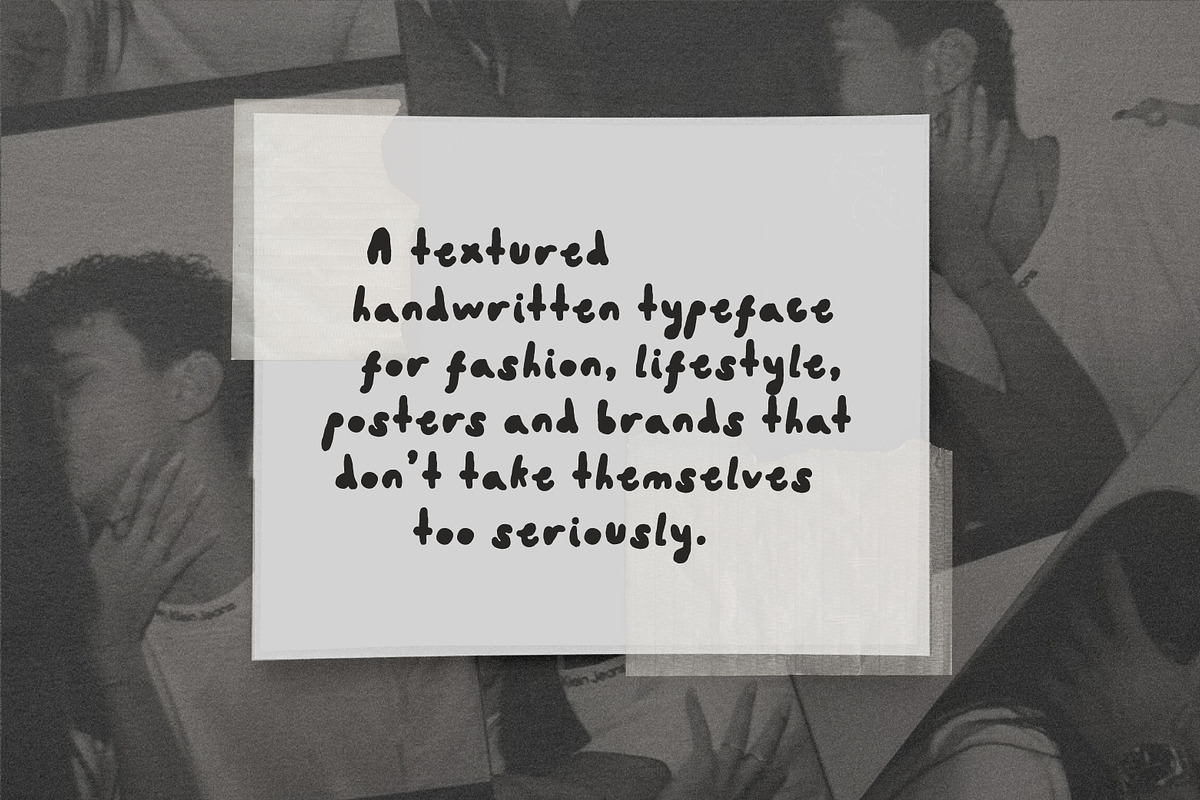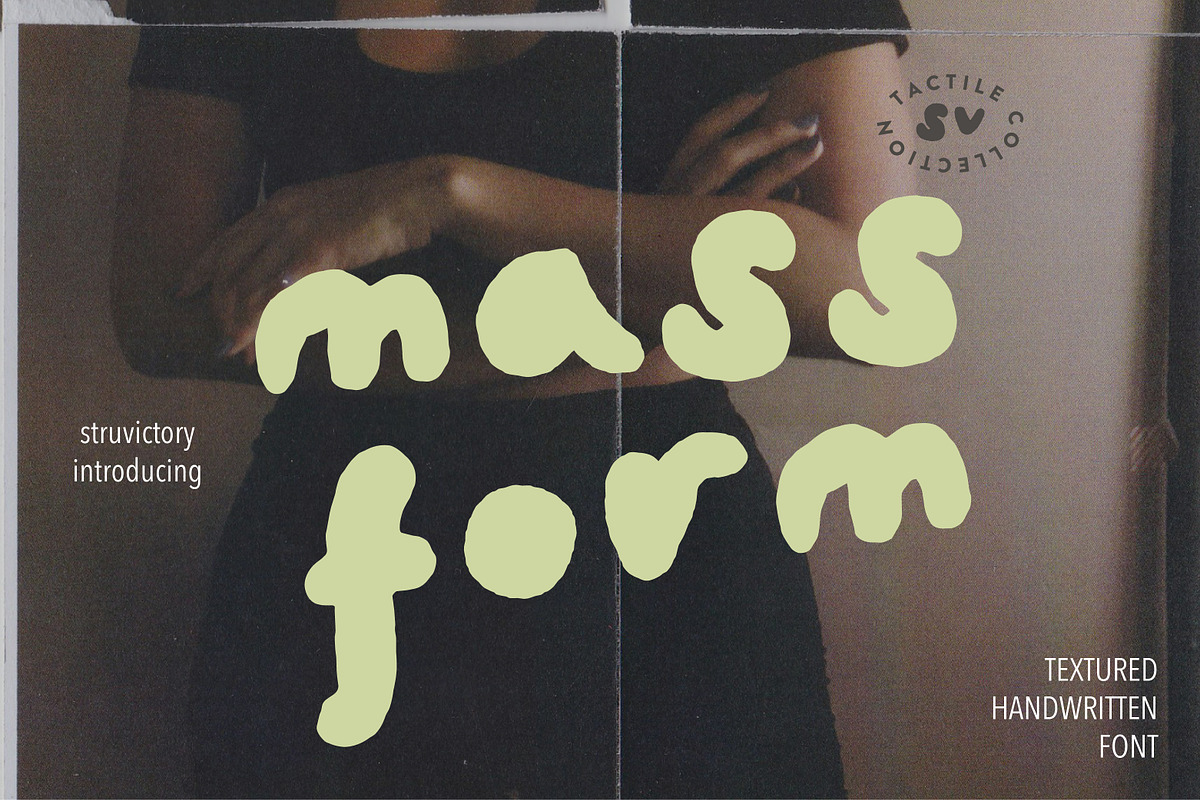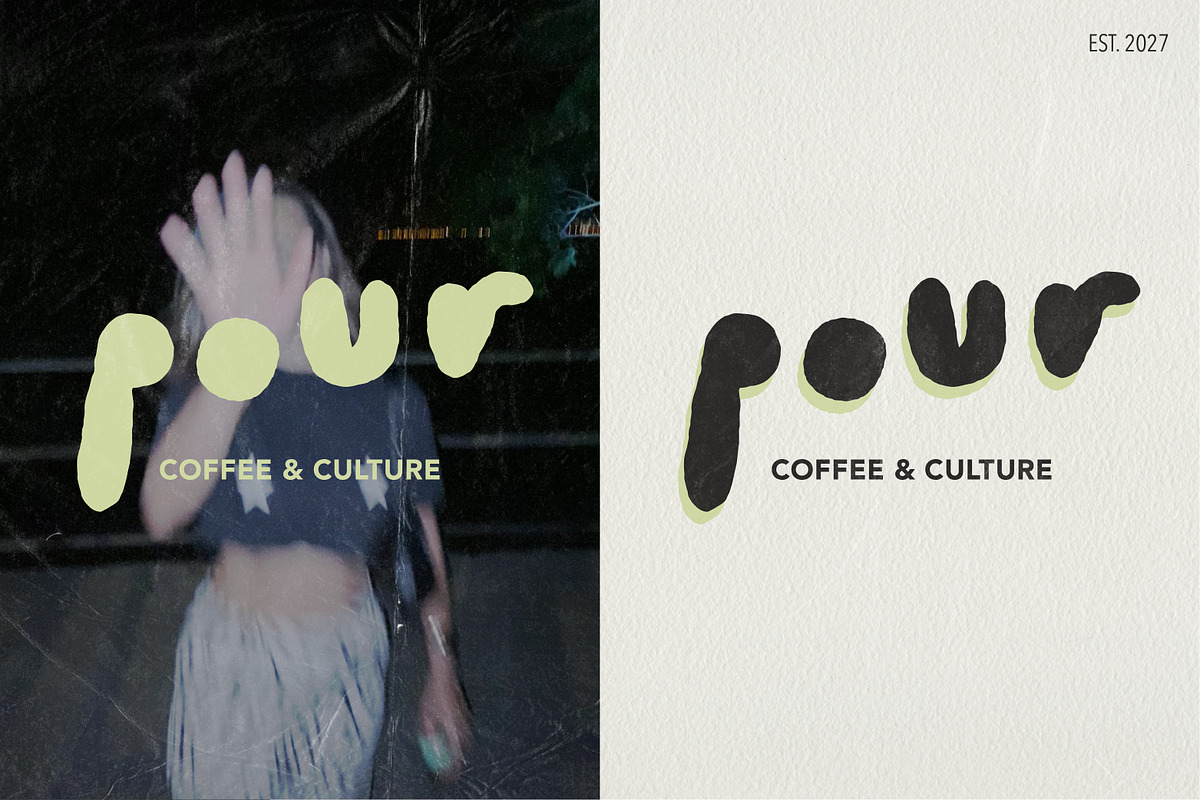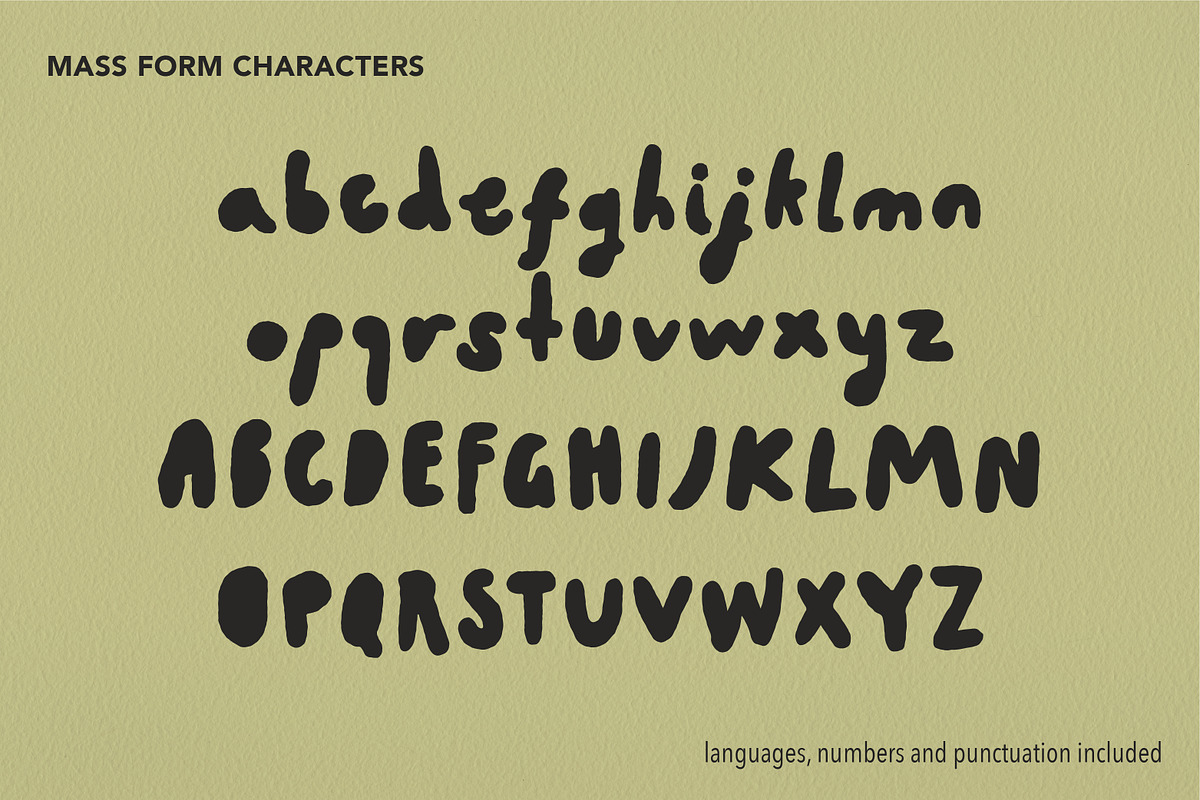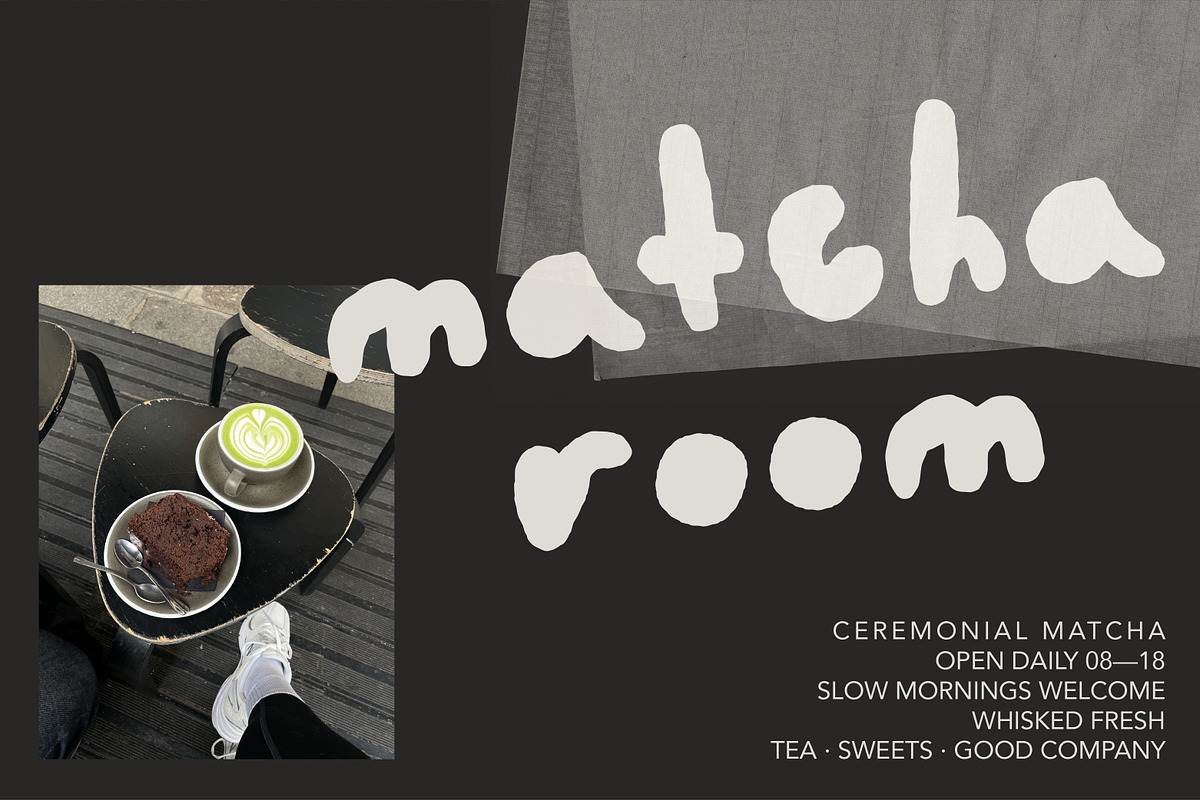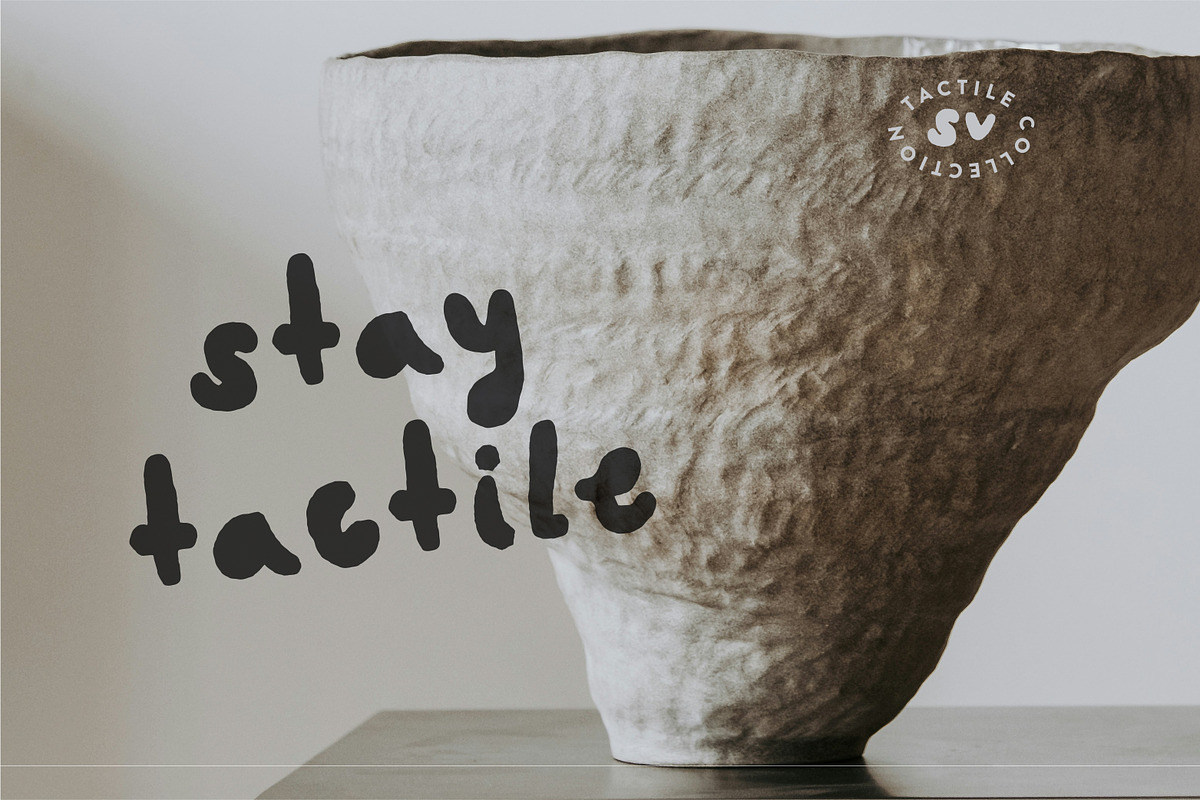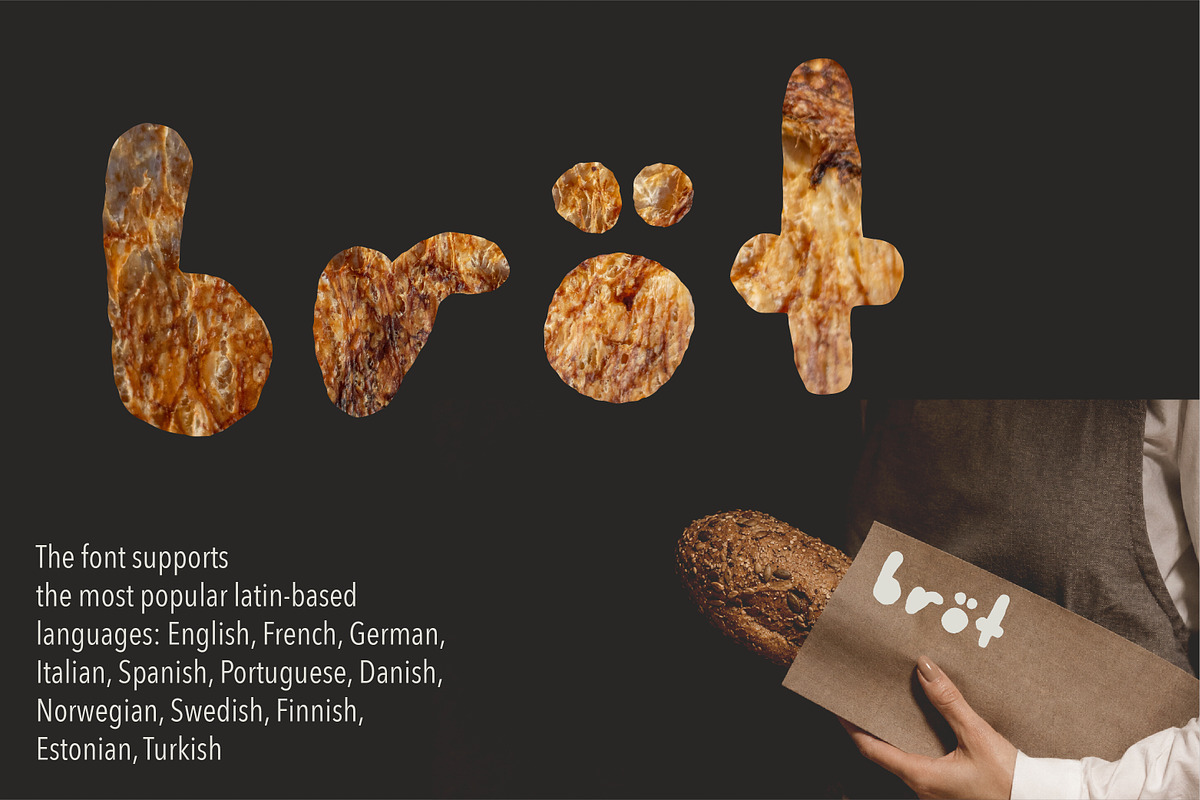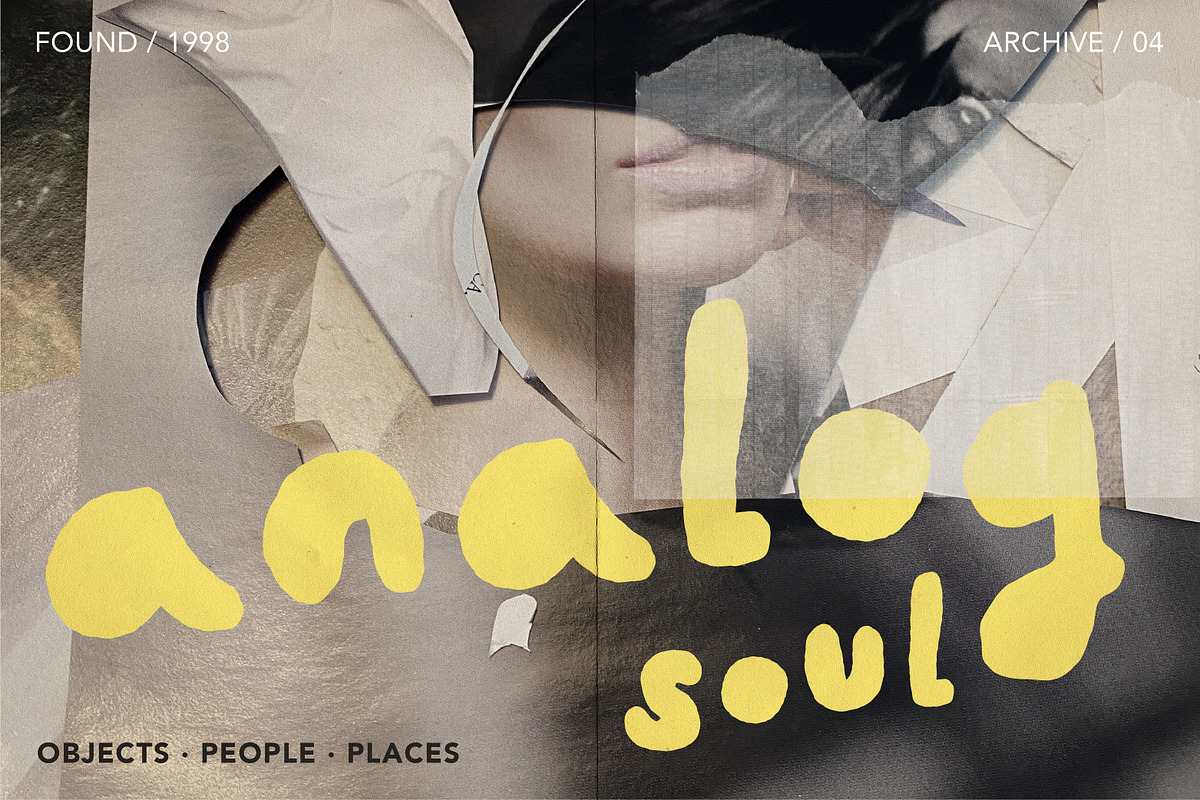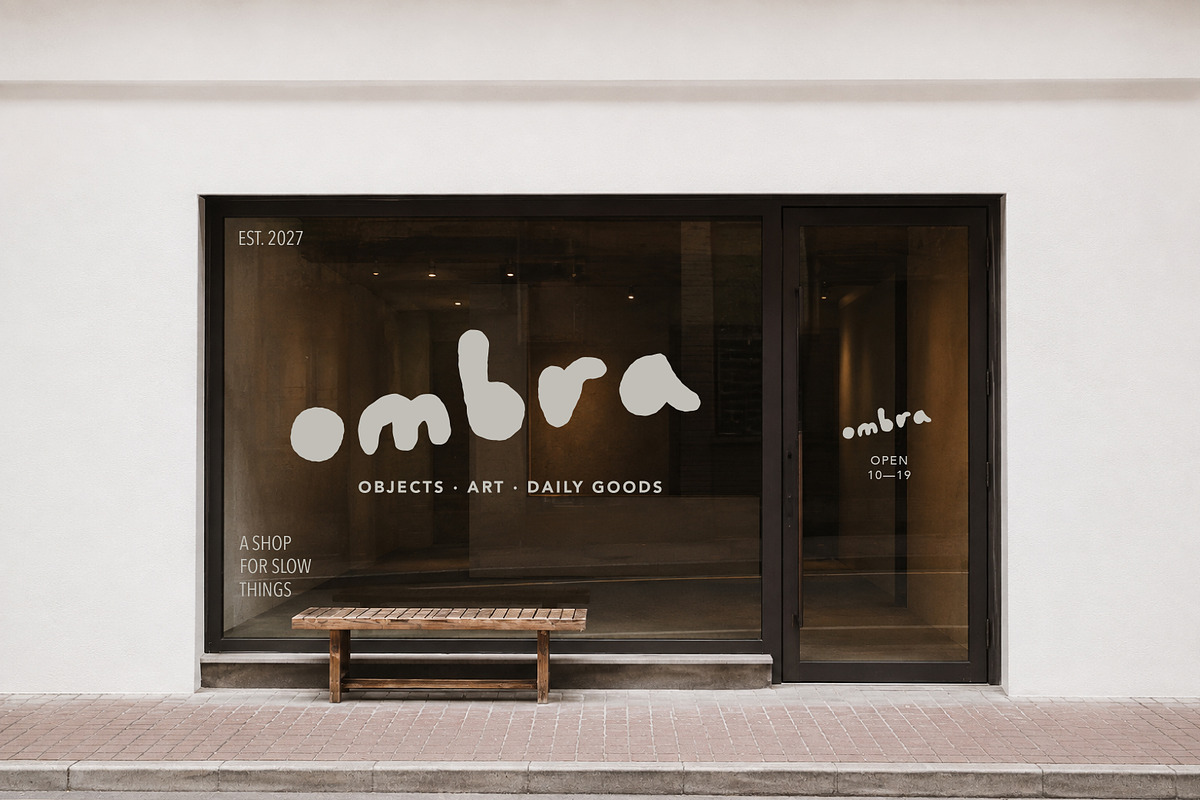
Mass Form Bold Textured Handwritten
Mass Form is a textured handwritten font with a bold, playful presence and a distinctly tactile feel. Its imperfect shapes and expressive letterforms bring personality to fashion identities, lifestyle brands, packaging, posters, editorial layouts, food and beverage projects, and everyday visual communication. Designed to feel contemporary without being overly polished, Mass Form works especially well when you want a brand to look confident, human, and a little unexpected.
Mass Form supports the most popular latin-based languages, you can check the symbol you need by typing a couple of words in the font preview box.